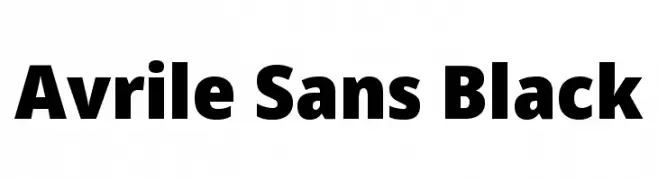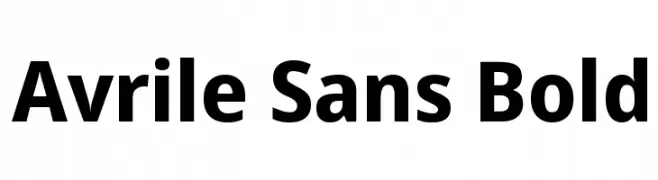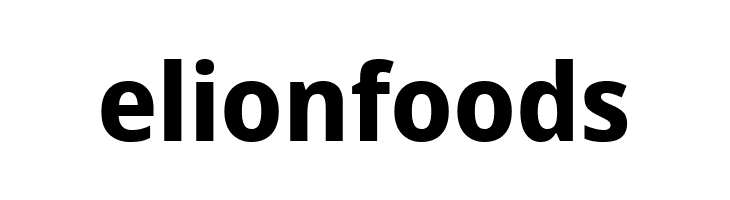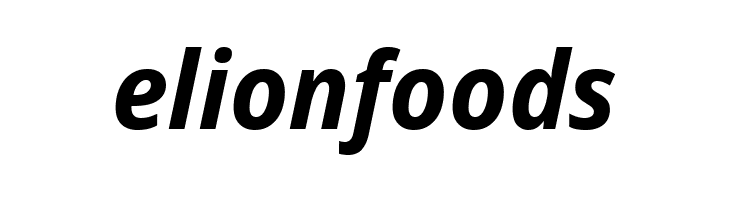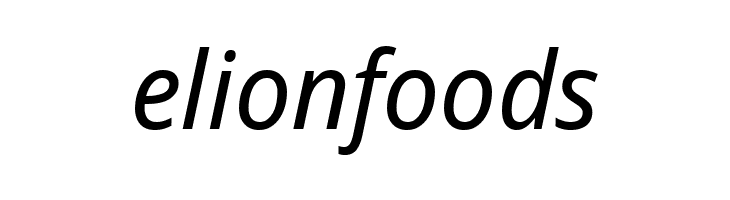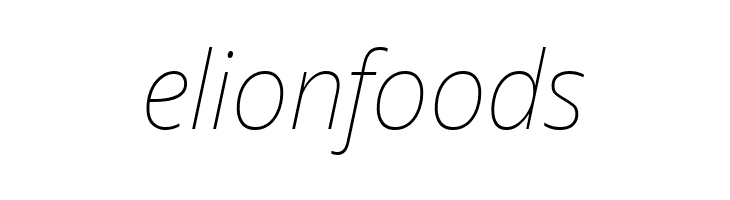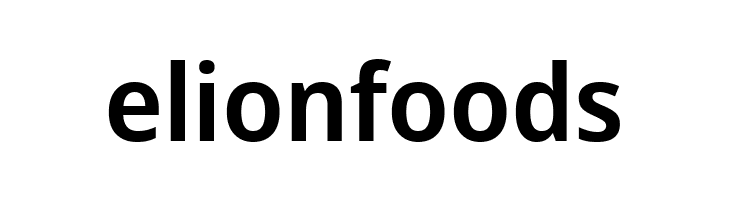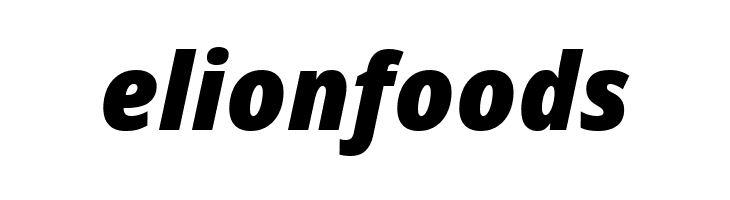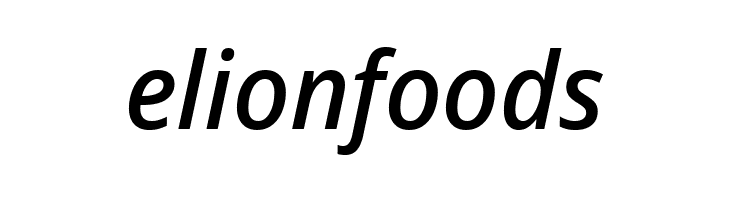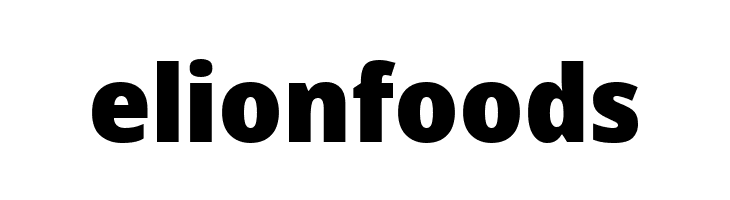
A bold, modern sans-serif font with clean lines and strong presence.
A bold, italicized sans-serif font with a modern and dynamic style.
A modern sans-serif font with an italic slant, offering a clean and dynamic look.
A sleek, thin, and italicized sans-serif font with a modern and elegant design.
A clean, modern sans-serif font with a semi-bold weight and balanced proportions.
A modern sans-serif font with clean, geometric letterforms.
A bold, italic sans-serif font with a modern and dynamic style.
A sleek, modern sans-serif typeface with an italicized style and medium weight.
A bold, modern sans-serif font with thick, uniform strokes.
A modern sans-serif font with semi-bold weight and italic style, offering readability and dynamic appeal.